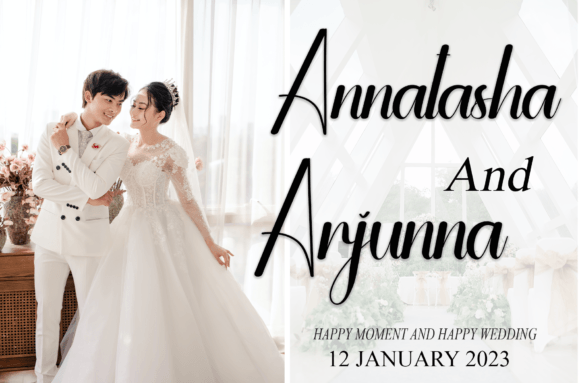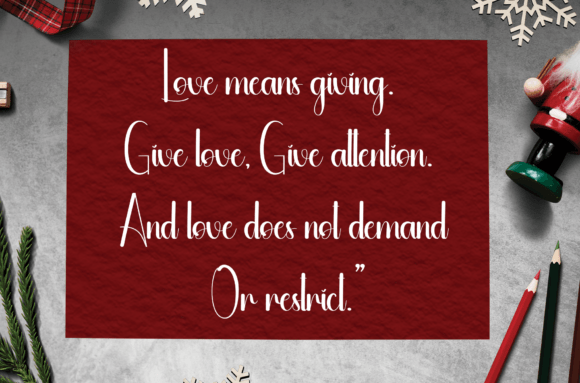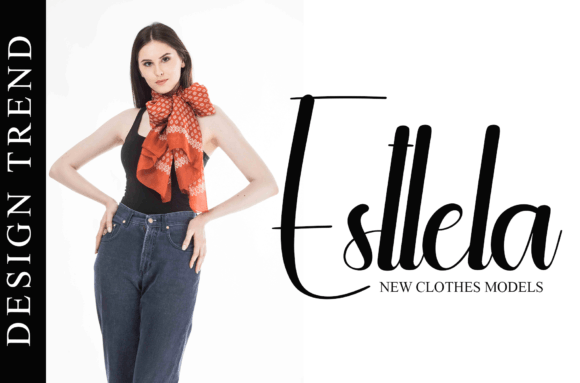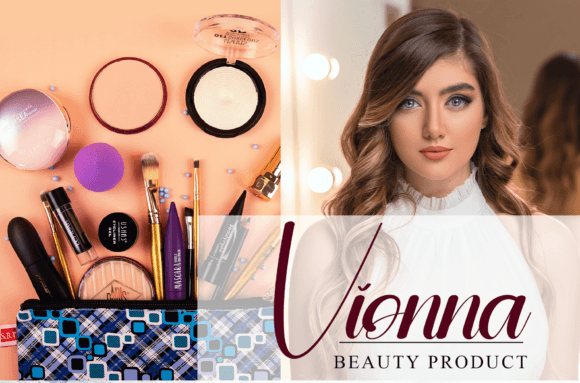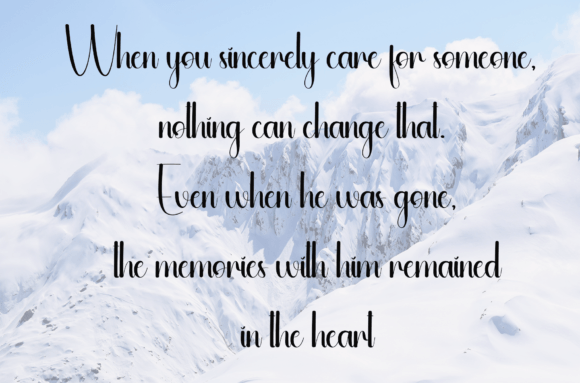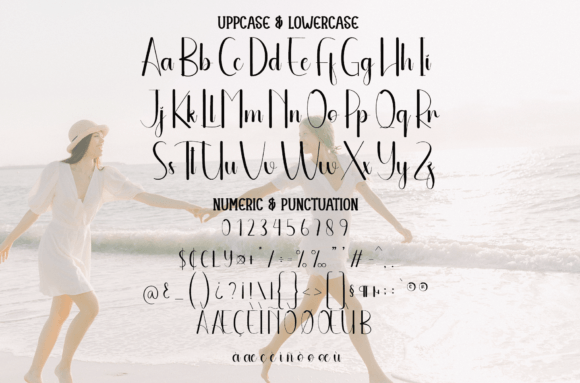
Babe Boho Font: The Perfect Addition to Your Design Arsenal
Are you a designer or crafter looking for a font that can add a touch of sweetness and friendliness to your projects? Look no further than the Babe Boho font! This beautiful handwritten font is perfect for creating wedding invitations, cards, and other designs that require a fun and playful touch.
What is Babe Boho Font?
Babe Boho is a sweet and friendly handwritten font that is fresh and neat. It’s the perfect choice for designers and crafters who want to add a personal touch to their projects. The font is designed to be easy to read and understand, making it ideal for use in a variety of applications, from wedding invitations to social media graphics.
Key Features of Babe Boho Font
- Sweet and Friendly: Babe Boho font has a sweet and friendly tone that makes it perfect for designs that require a personal touch.
- Handwritten: The font has a beautiful handwritten look that adds a touch of elegance and sophistication to any design.
- Fresh and Neat: The font is fresh and neat, making it easy to read and understand.
- Versatile: Babe Boho font can be used in a variety of applications, from wedding invitations to social media graphics.
Uses of Babe Boho Font
Babe Boho font is ideal for a variety of design projects, including:
- Wedding Invitations: The font is perfect for creating beautiful and elegant wedding invitations that set the tone for the big day.
- Cards: Babe Boho font can be used to create a variety of cards, from birthday cards to thank-you cards.
- Social Media Graphics: The font can be used to create fun and engaging social media graphics that add a personal touch to your online presence.
- Branding: Babe Boho font can be used to create a unique and recognizable brand identity that sets you apart from the competition.
Why Choose Babe Boho Font?
There are many reasons why you should choose Babe Boho font for your design projects. Here are a few:
- Unique: Babe Boho font has a unique and distinctive look that sets it apart from other fonts.
- Easy to Read: The font is easy to read and understand, making it perfect for use in a variety of applications.
- Versatile: Babe Boho font can be used in a variety of applications, from wedding invitations to social media graphics.
- High-Quality: The font is high-quality and designed to look great in any design project.
Tips for Using Babe Boho Font
Here are a few tips for using Babe Boho font in your design projects:
- Use it Sparingly: Babe Boho font is a beautiful font, but it can be overwhelming if used too much. Use it sparingly to add a touch of elegance and sophistication to your designs.
- Pair it with Other Fonts: Babe Boho font can be paired with other fonts to create a unique and recognizable design.
- Experiment with Colors: The font looks great in a variety of colors, so don’t be afraid to experiment and find the perfect color for your design.